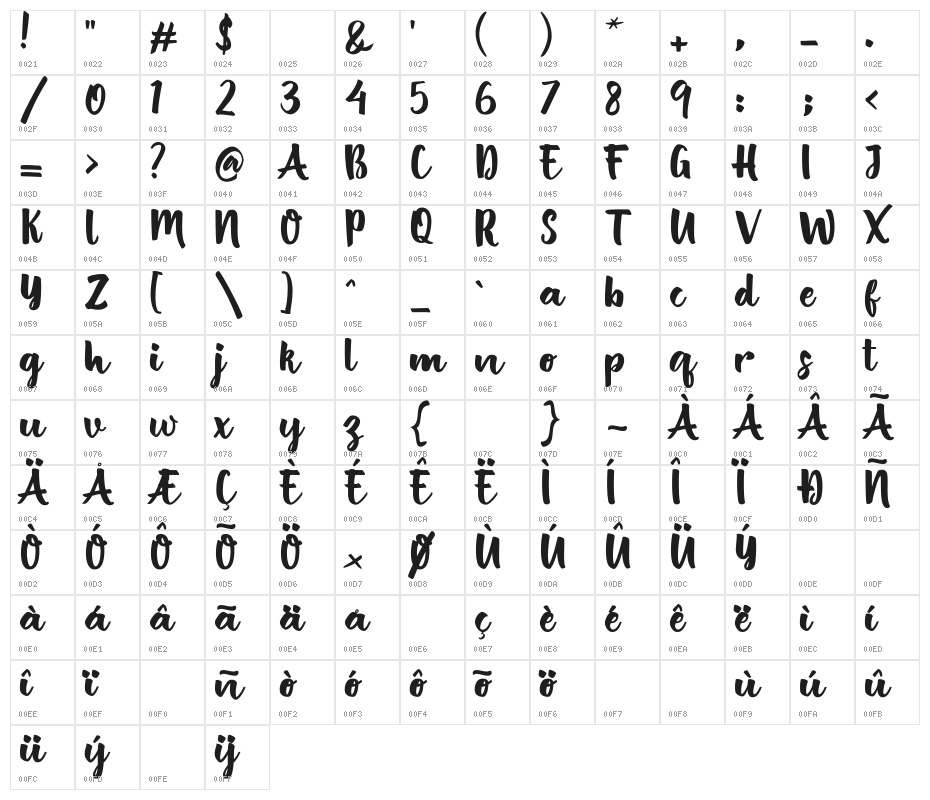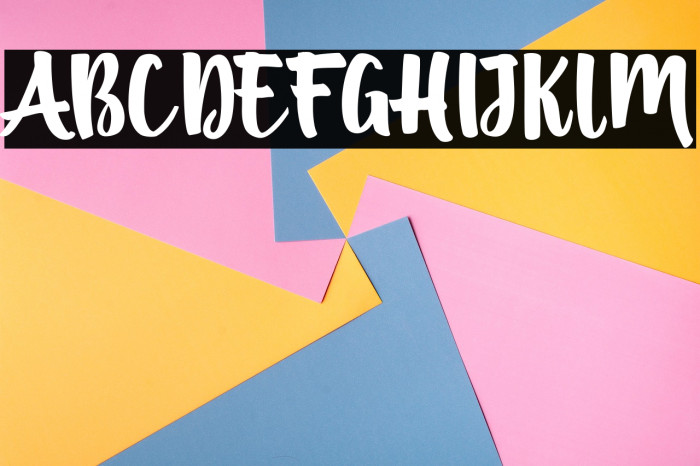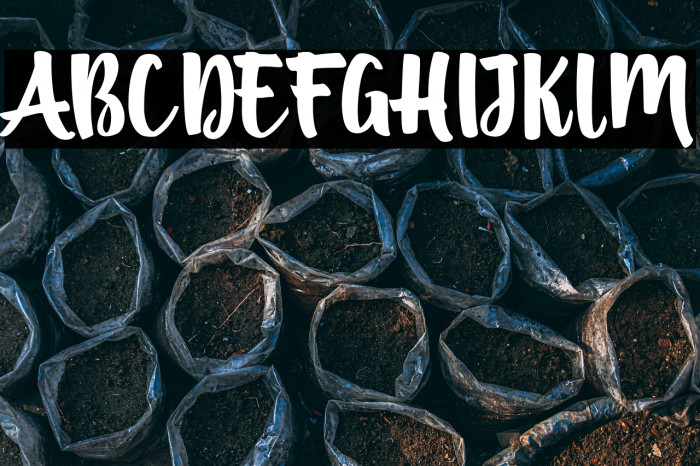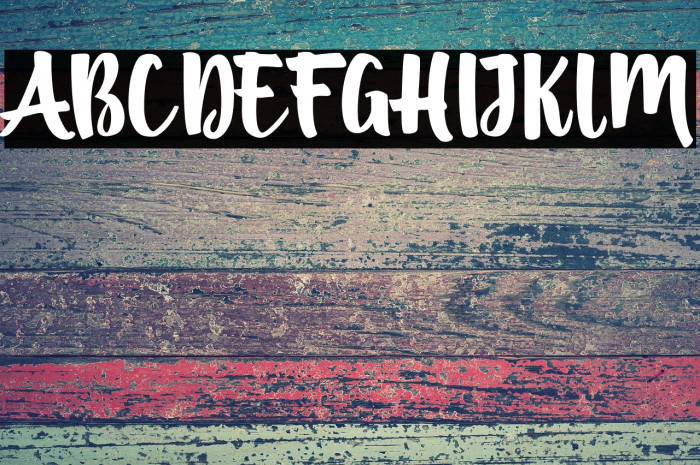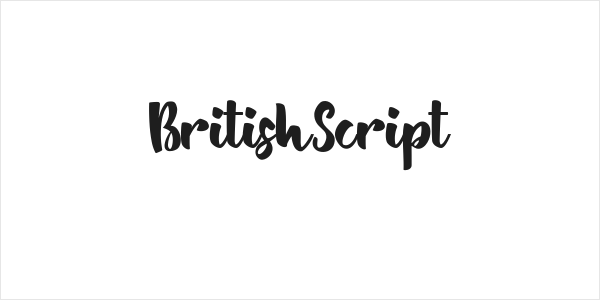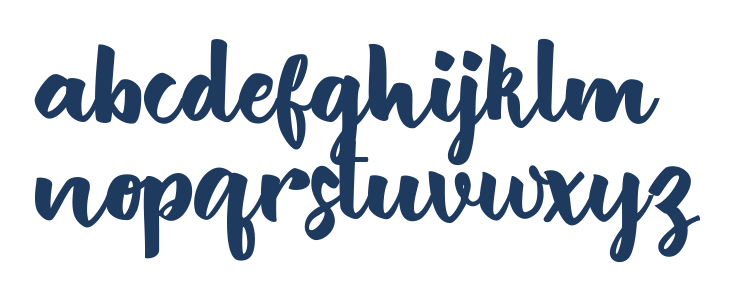
BritishScript Font
BritishScript Description
This font features a bold and expressive script style, characterized by its fluid and dynamic strokes. The letters are interconnected, creating a sense of movement and elegance. The uppercase characters are particularly striking, with exaggerated curves and flourishes that add a touch of sophistication. The lowercase letters maintain a consistent flow, enhancing readability while retaining the decorative flair. Numbers and special characters are crafted with the same attention to detail, ensuring a cohesive look across all elements. This font is ideal for projects that require a personal and artistic touch, such as invitations, branding, and creative designs.
| Use Case | Logos, Headlines, Artistic projects |
| Proposed Projects | Ideal for invitations, branding, creative designs, and artistic projects. |